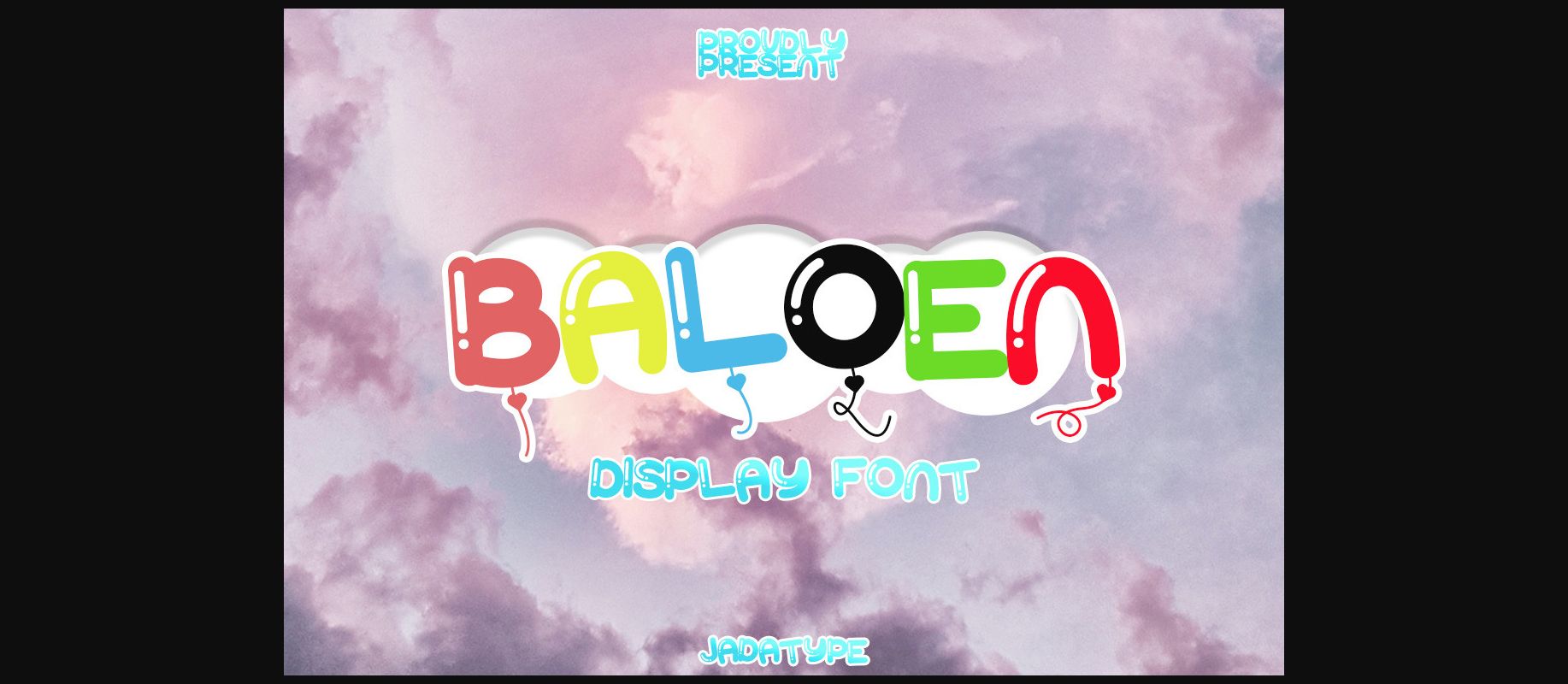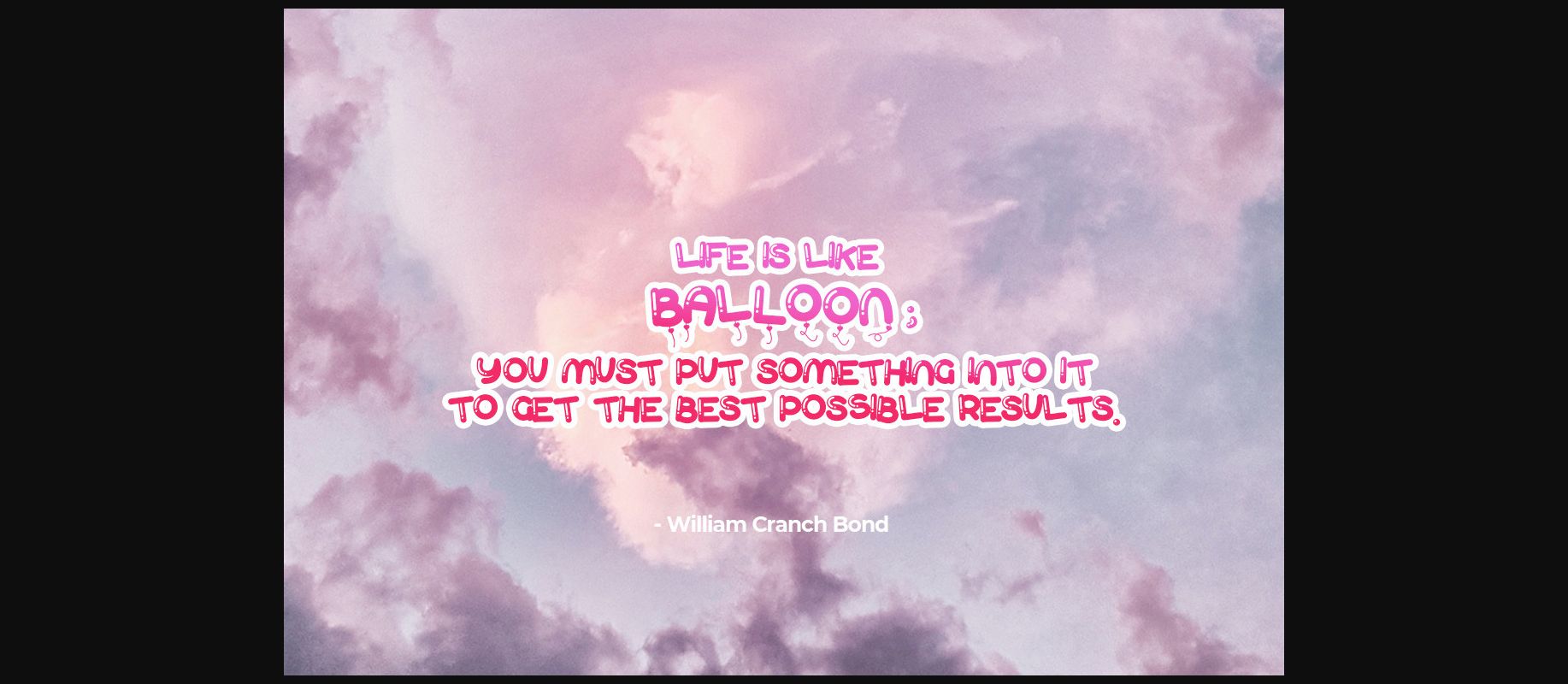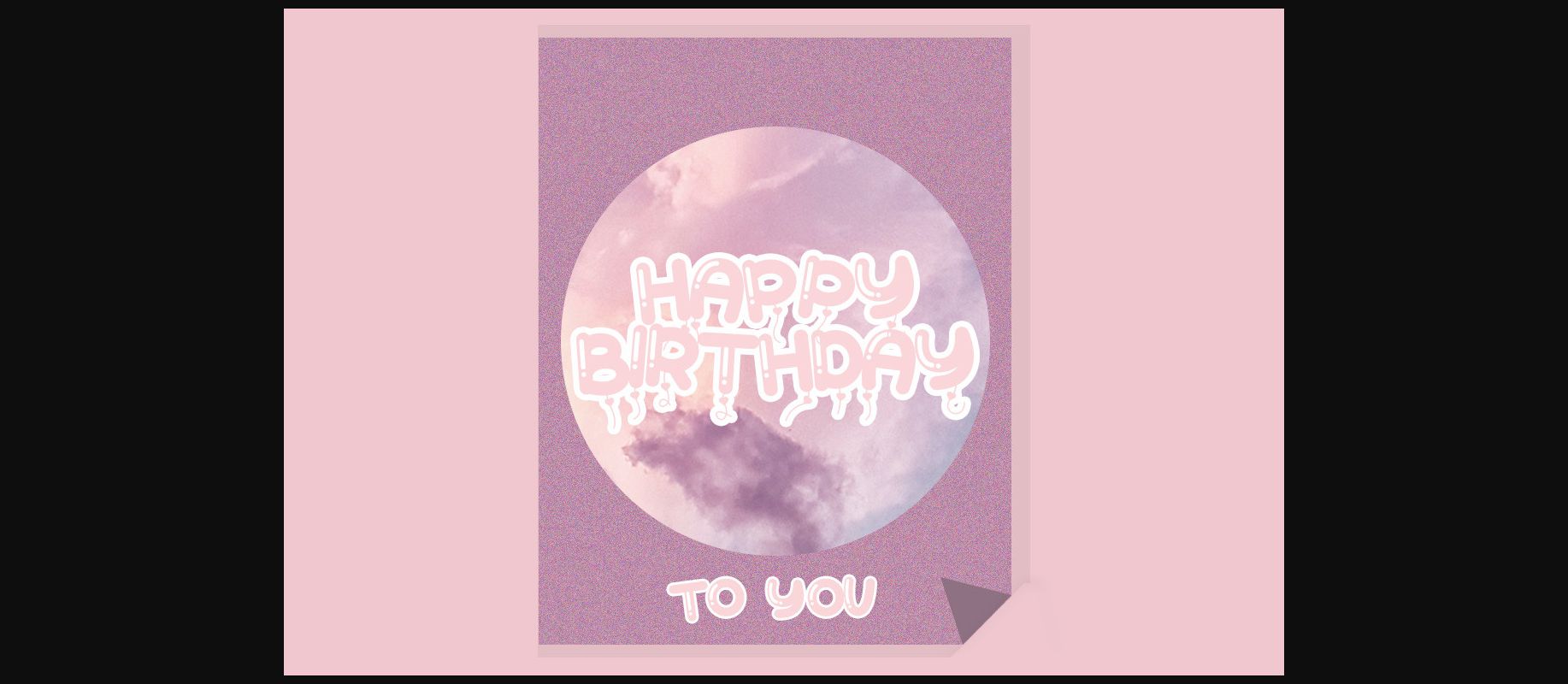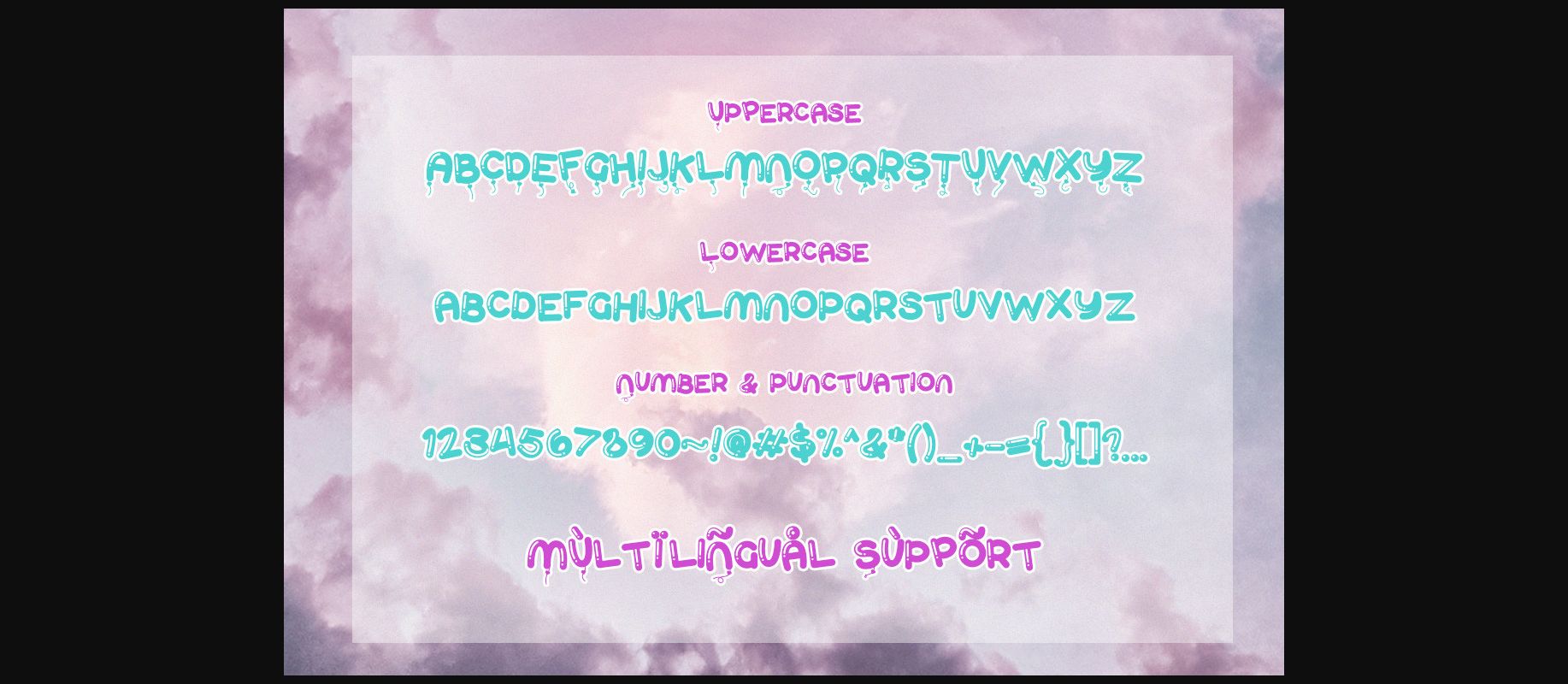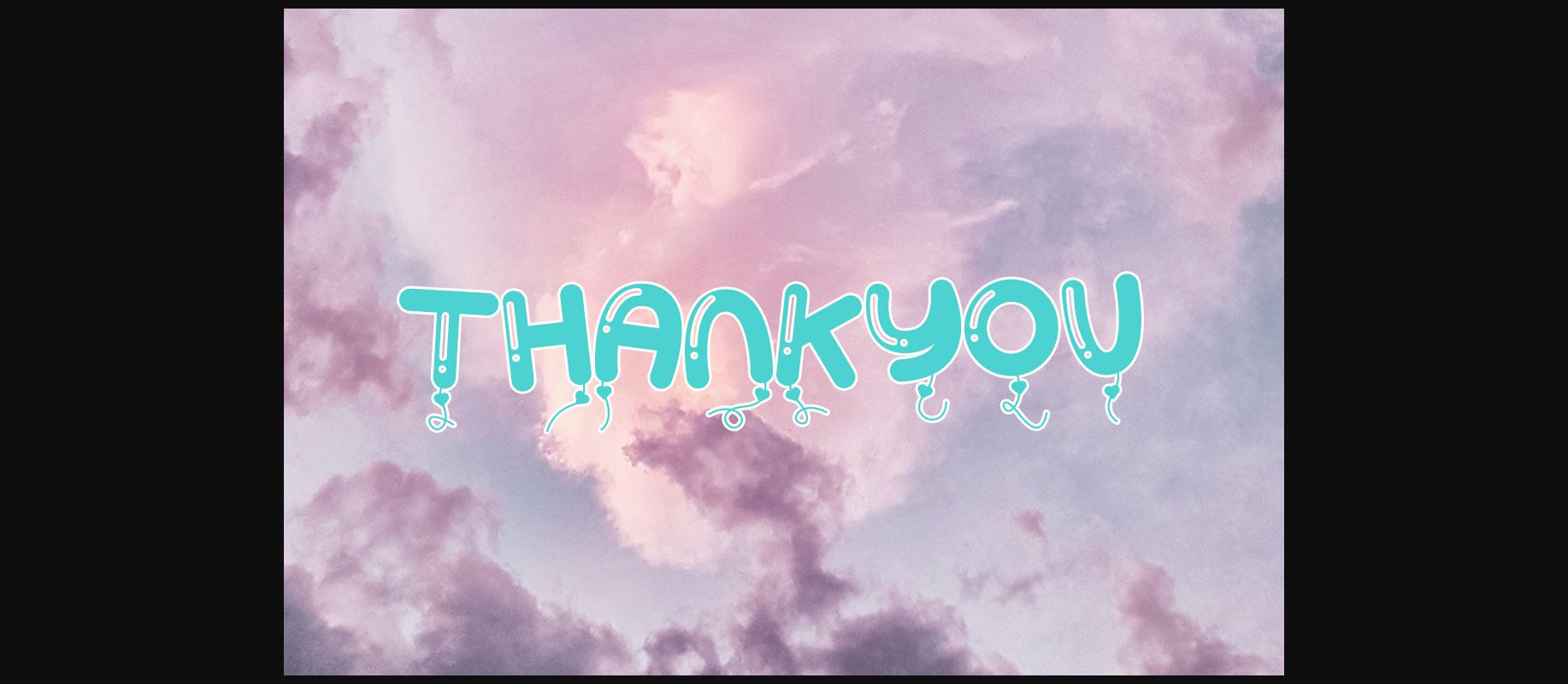
About Baloen Font
Baloen is a playful, bouncy, and fun decorative font. It’s perfect to cheer up your designs and add a lovely touch to any item. Use it for greeting cards, birthday cards, or other crafty ideas!